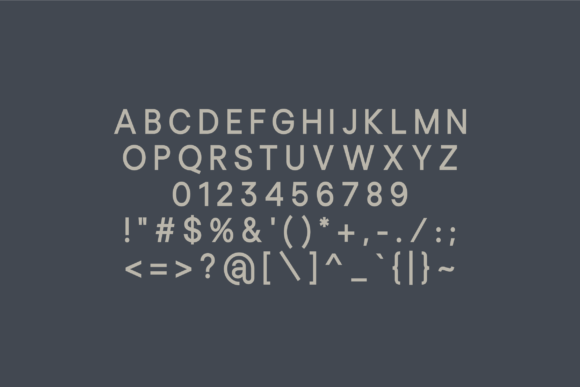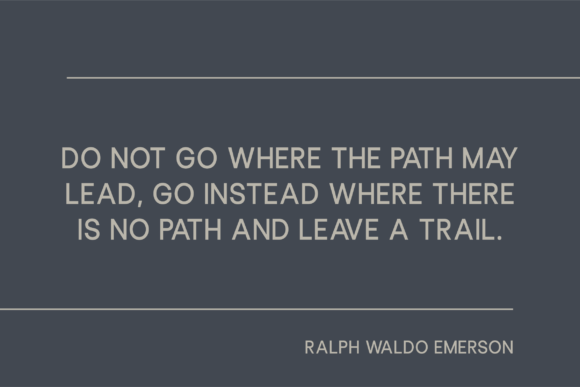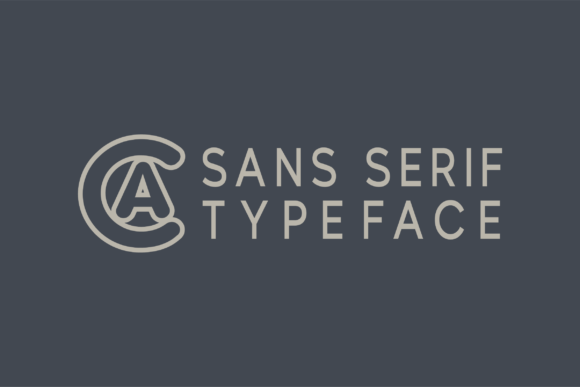
Introduction to Argonautis Font
Welcome to Argonautis, the epitome of elegance and modernity, housed in a sans serif typeface.
Furnished with upper characters, numerals from 0-9, and an array of punctuation and symbols, Argonautis is your canvas for creativity Its versatility transcends boundaries, making it an ideal choice for everything from chic wedding invitations to bold logos, inspiring quotes to captivating print magazines and eye-catching advertisements.
Key Features of Argonautis Font
Why Choose Argonautis Font?
Argonautis Font offers exceptional quality and versatility, making it a valuable addition to your design toolkit. Whether you’re creating for personal projects or commercial use, Argonautis Font delivers professional results.